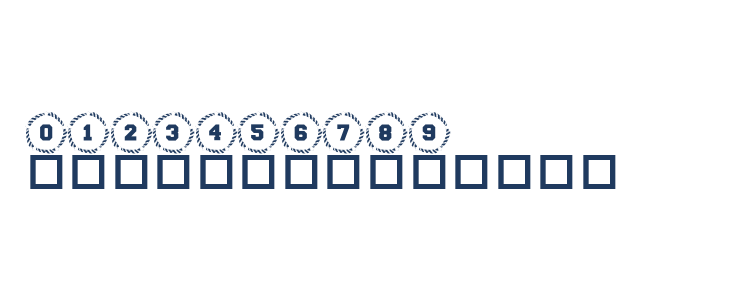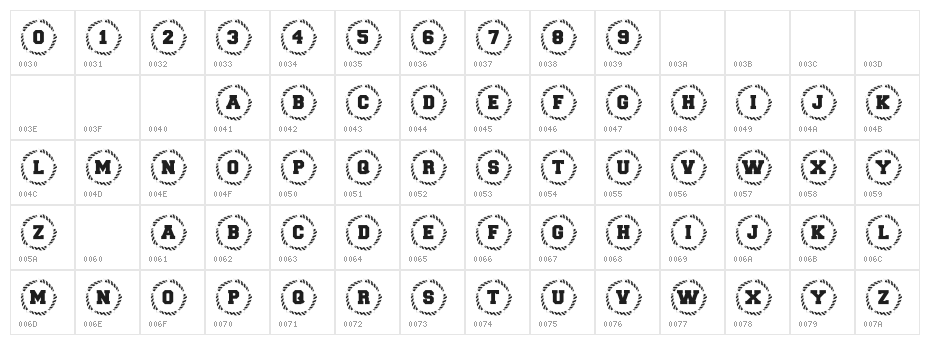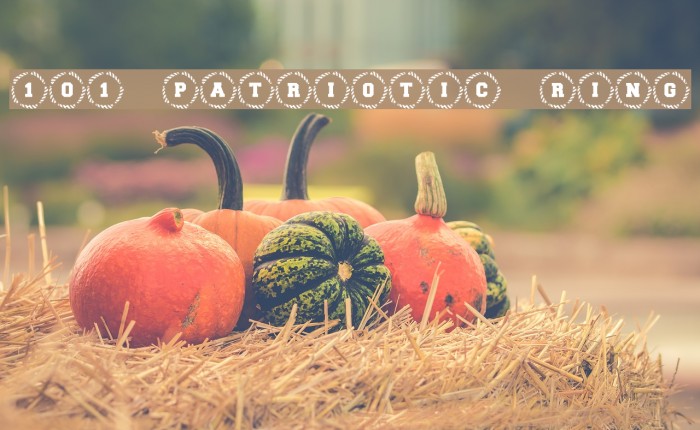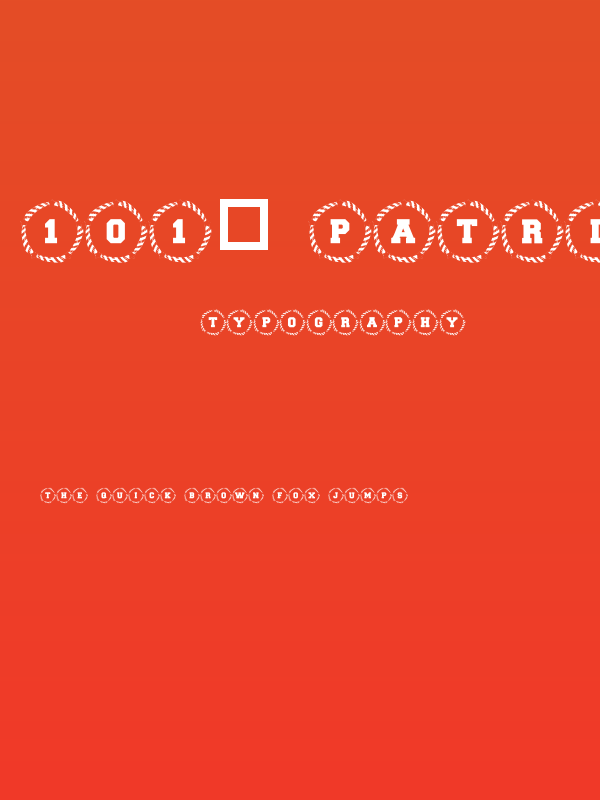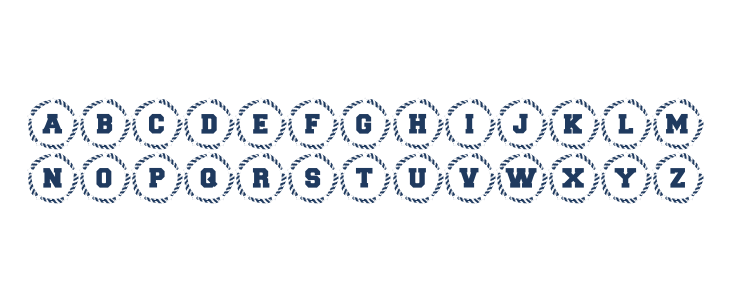
101! Patriotic Ring Font
101! Patriotic Ring Description
This font features bold, uppercase letters encased in circular borders with a decorative, rope-like pattern. The characters are uniform in size, creating a cohesive and structured appearance. The boldness of the letters ensures high readability, while the decorative border adds a unique, playful touch. This style is reminiscent of vintage or nautical themes, making it suitable for projects that require a touch of whimsy or a maritime feel. The consistent spacing between characters and the uniformity of the circular borders contribute to a balanced and visually appealing design.
| Proposed Projects | Ideal for nautical-themed designs, children's book covers, playful posters, or event invitations. |